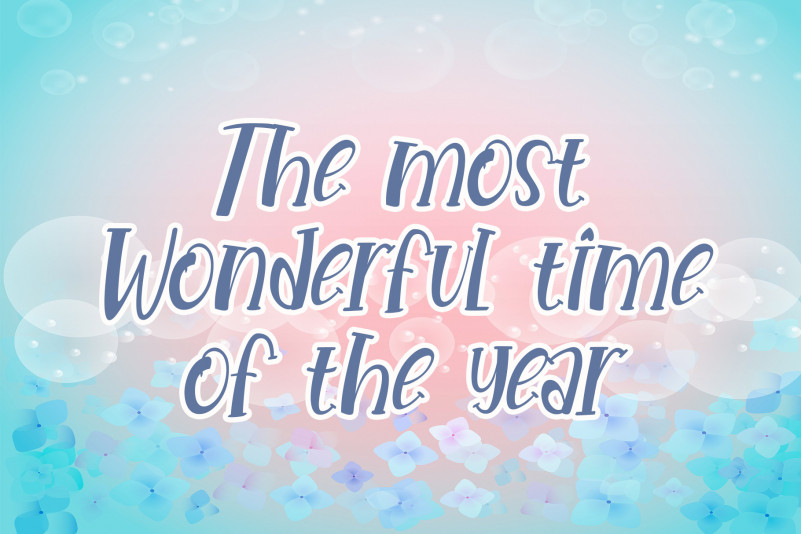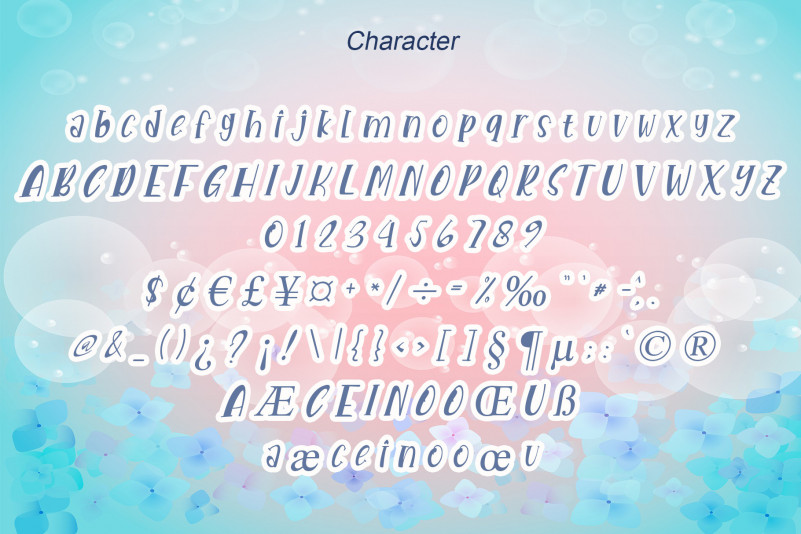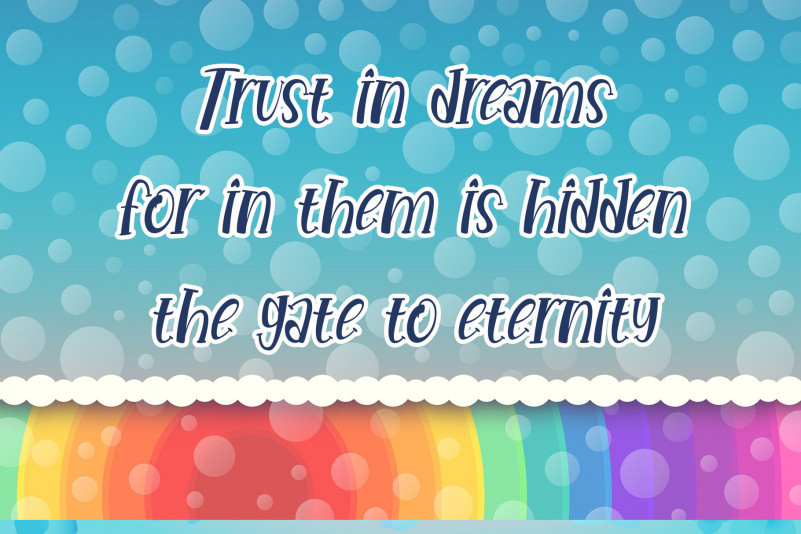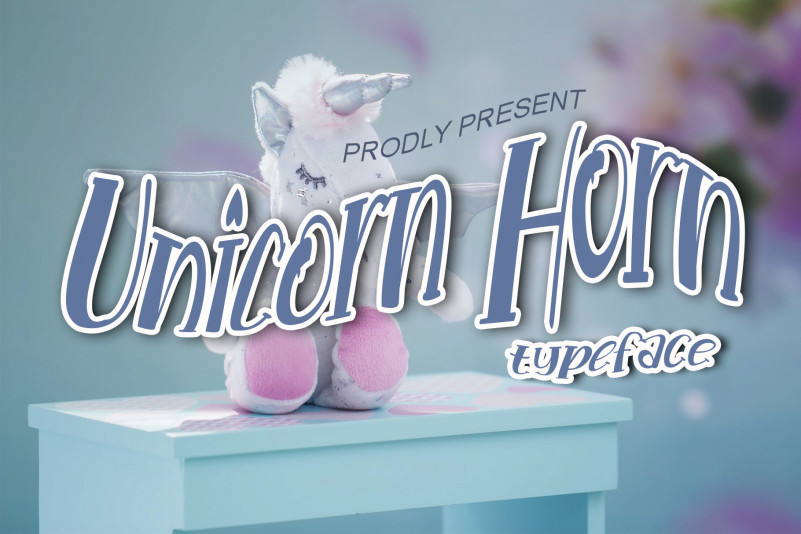
Unicorn Horn Font
Unicorn Horn Display Font
This is a cute and charming display font. Whether you use it for cartoon-related designs, children’s games or just any creation that requires a lovely touch, this font will be an amazing choice.